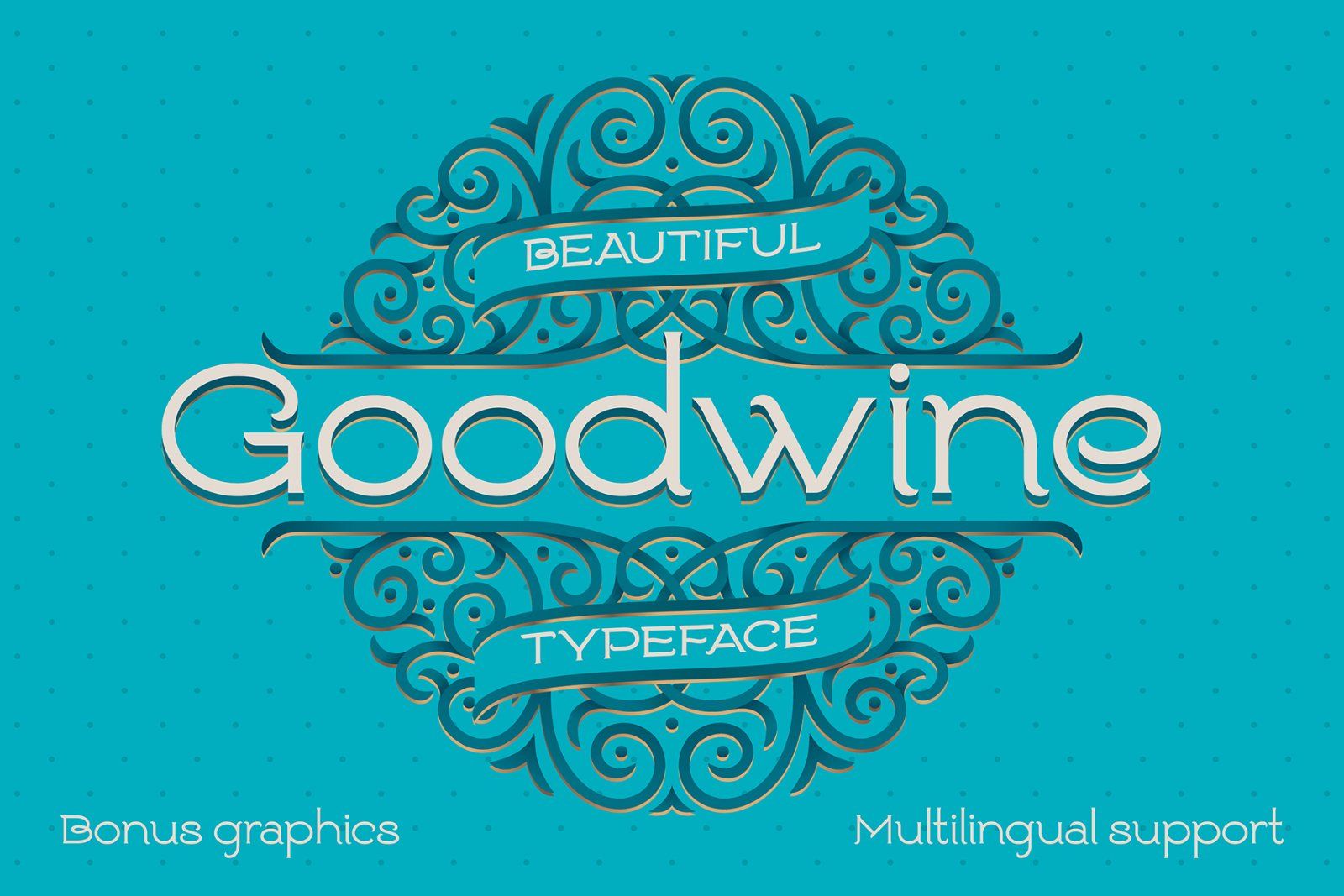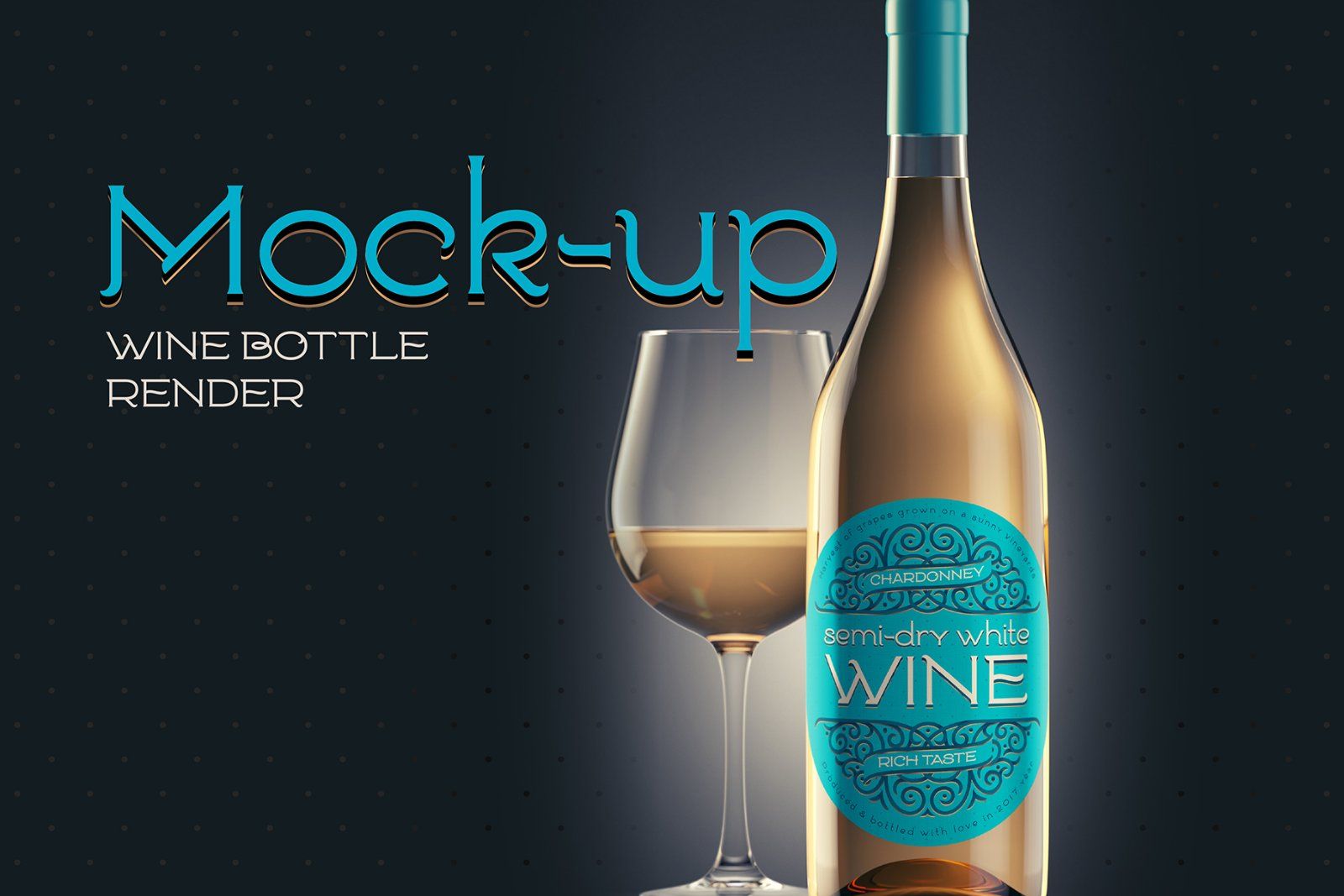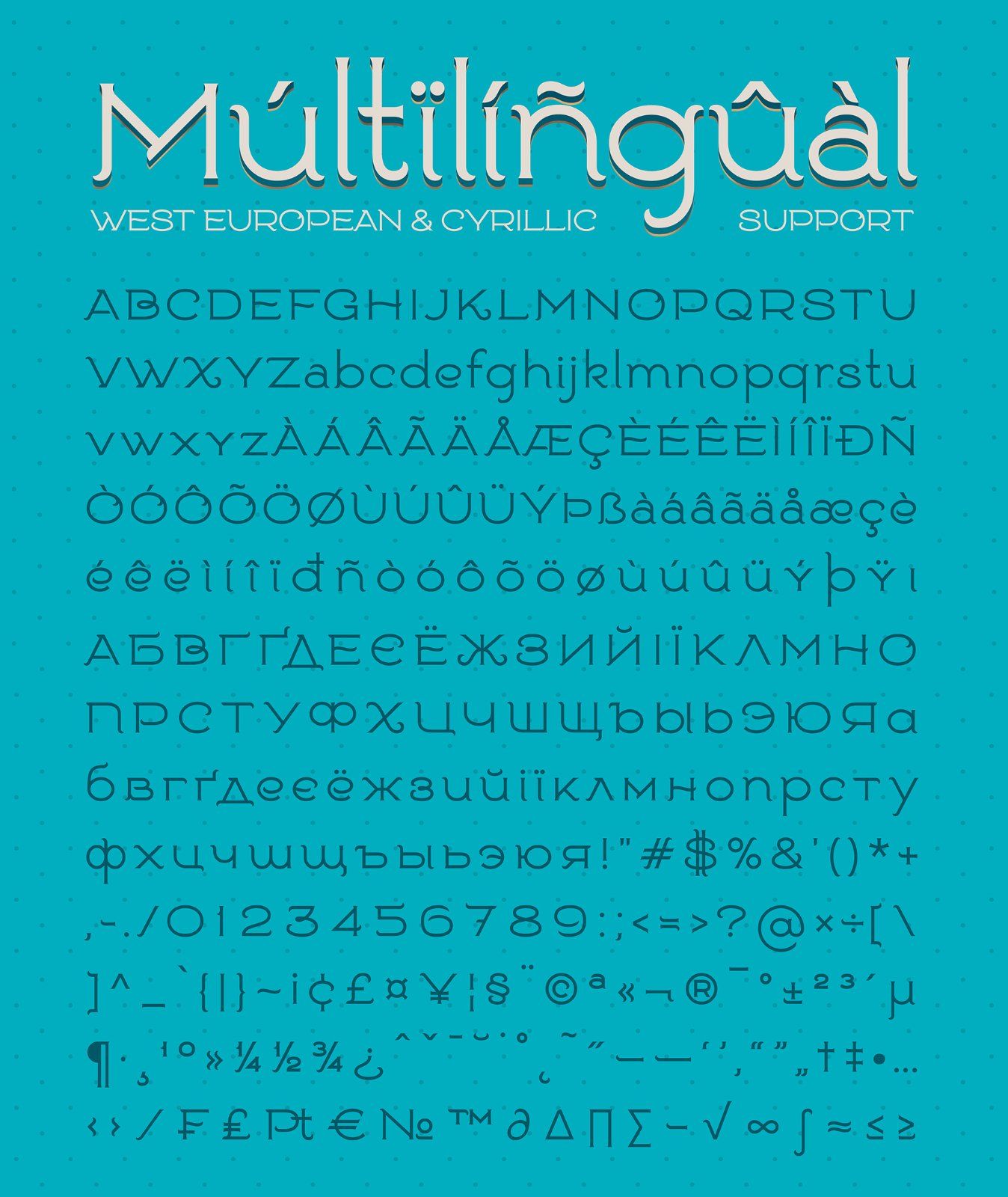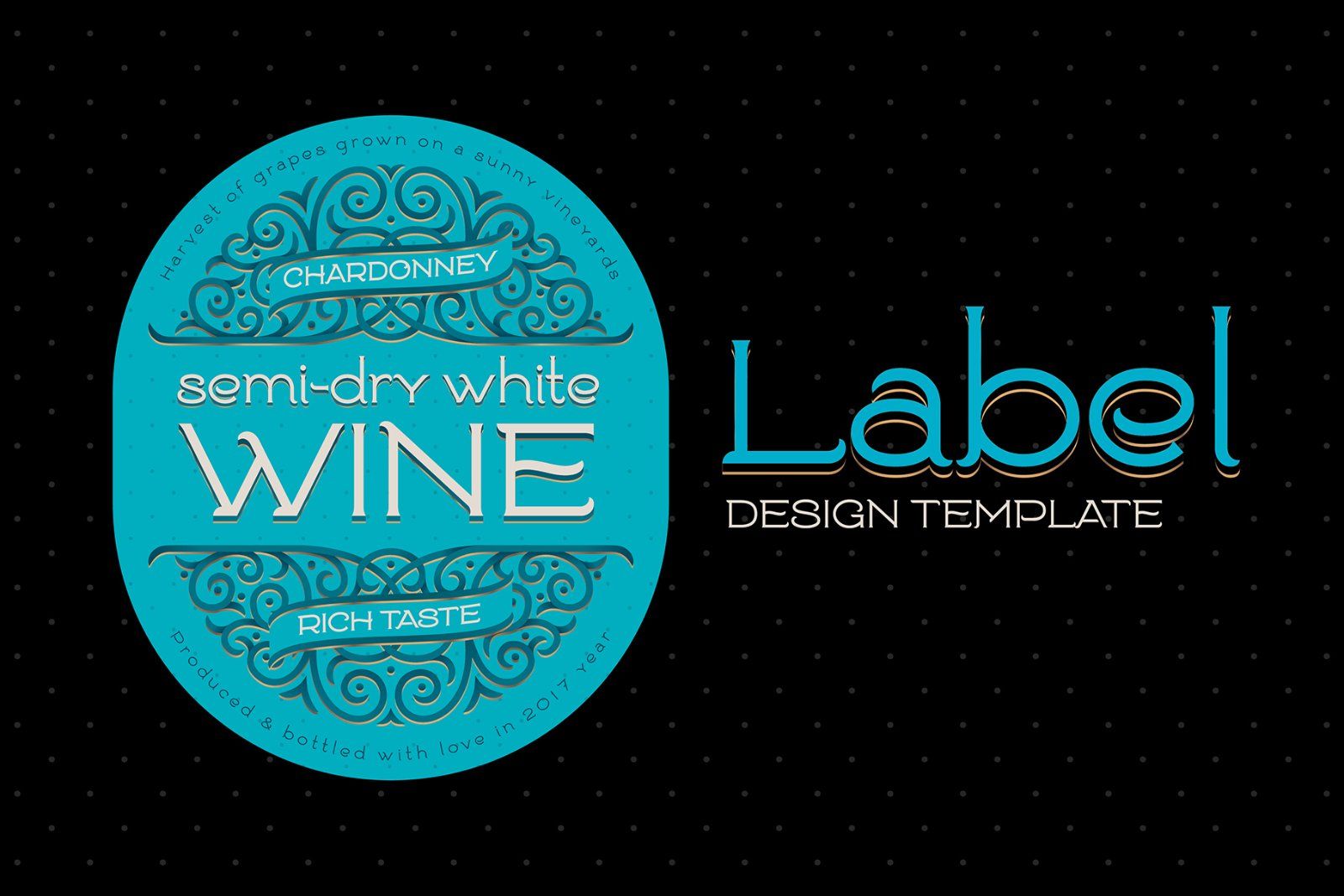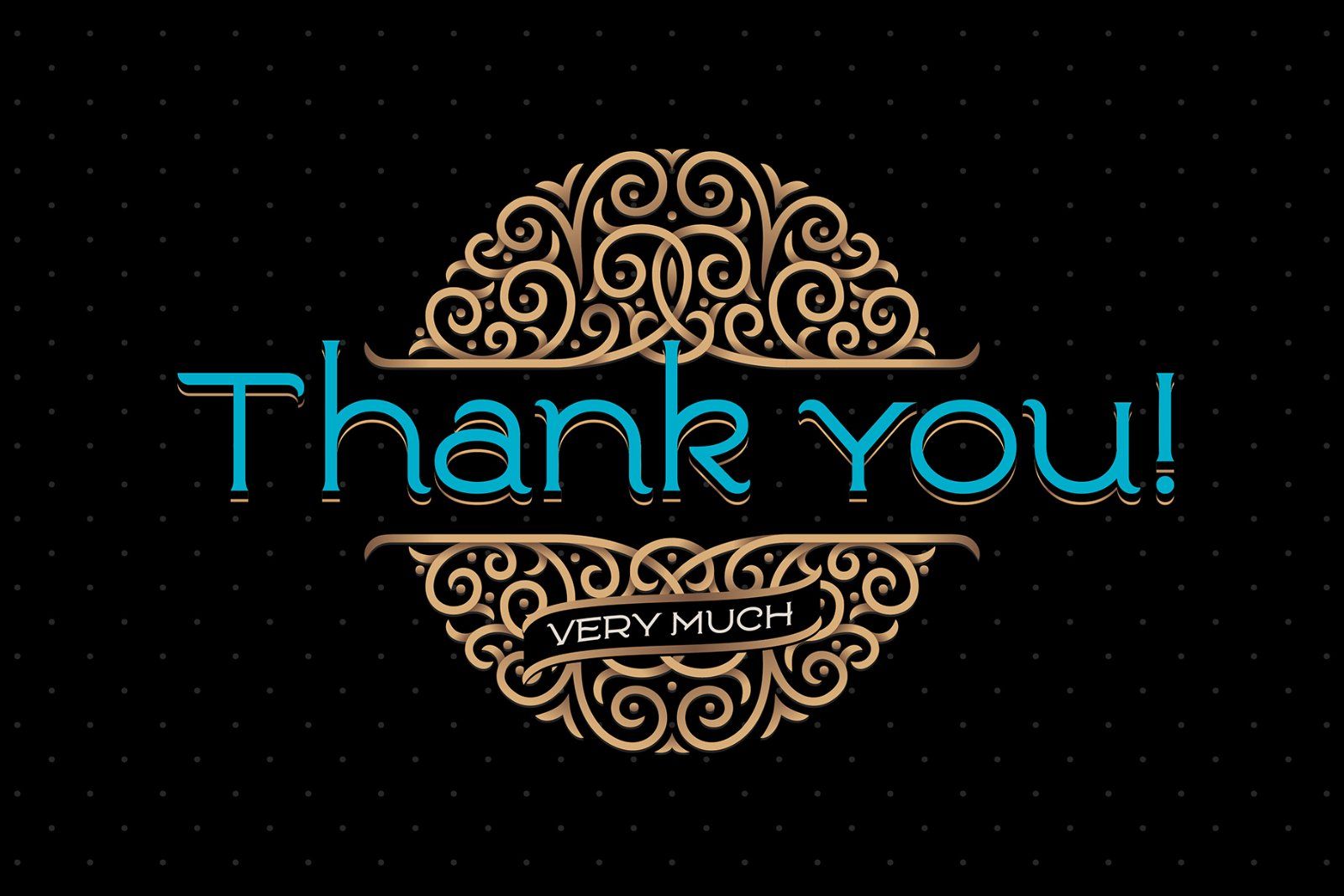
Hi. Presenting a wine graphics design kit. Simple and elegant font named "Goodwine" includes lots of characters with many languages support (West European, Cyrillic, etc... all characters you can see on 4th screenshot). Also available a vector label design template with ornament and graphic style. And finally a mock-up with wine glass bottle is included in this kit.